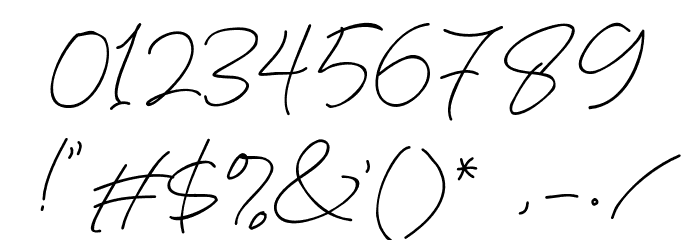
ElaineHanksDEMO Font
This font exudes a casual elegance with its flowing, handwritten style. The characters are connected in a fluid manner, reminiscent of cursive handwriting, giving it a personal and intimate feel. The strokes are smooth and consistent, with a slight variation in thickness that adds a touch of sophistication without compromising readability. The uppercase letters maintain a graceful balance, while the lowercase letters are slightly more playful, adding a dynamic touch to the overall appearance. Numbers and special characters are crafted with the same attention to detail, ensuring a cohesive look across all elements.
A fluid, handwritten-style font with elegant, connected characters.
- Font: ElaineHanksDEMO
- Proposed Projects: Ideal for wedding invitations, personal branding, greeting cards, and elegant packaging designs.
- Category: Handwritten
- Overall Style: Elegant, Casual
- Use Case: Invitations, Personal branding, Greeting cards